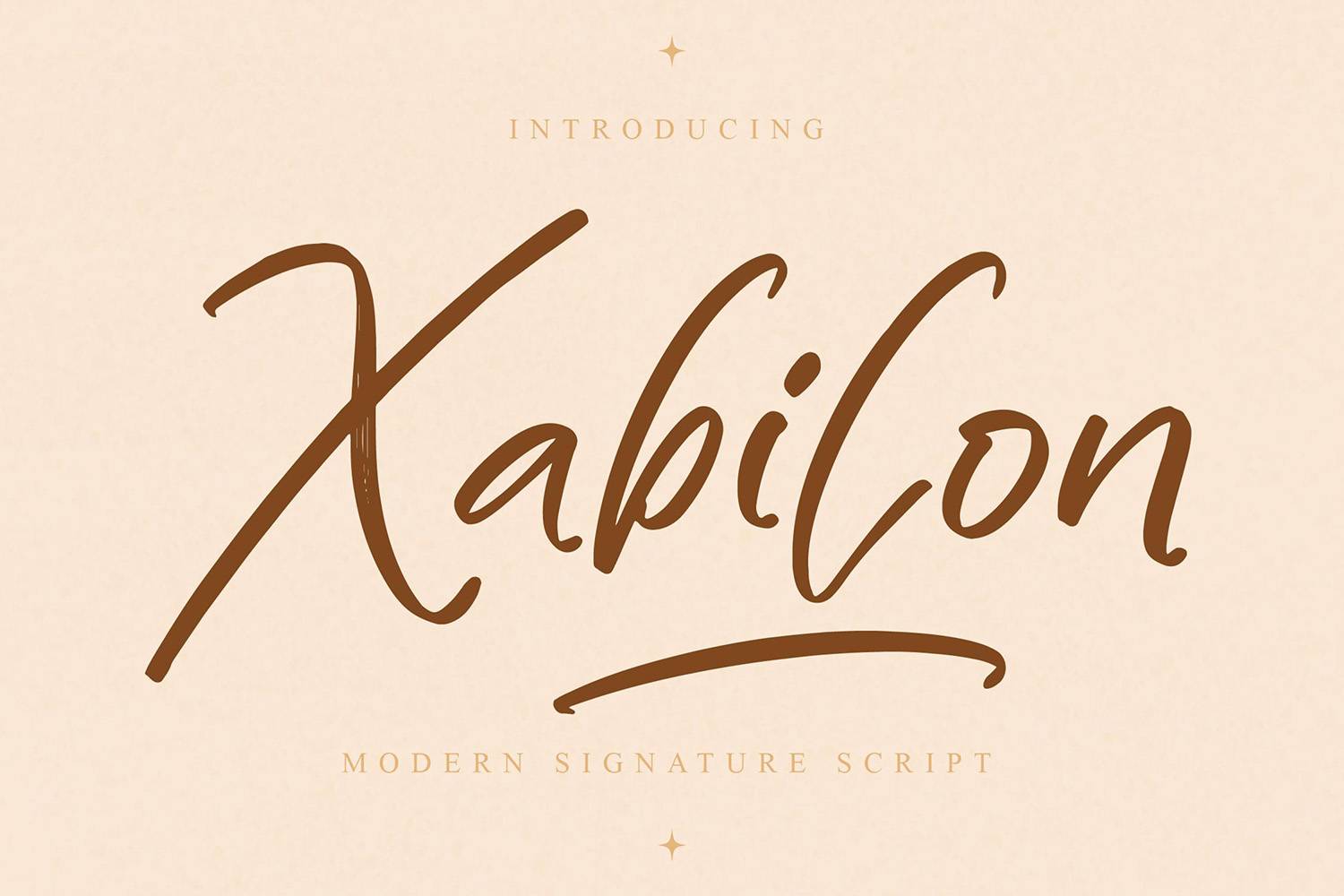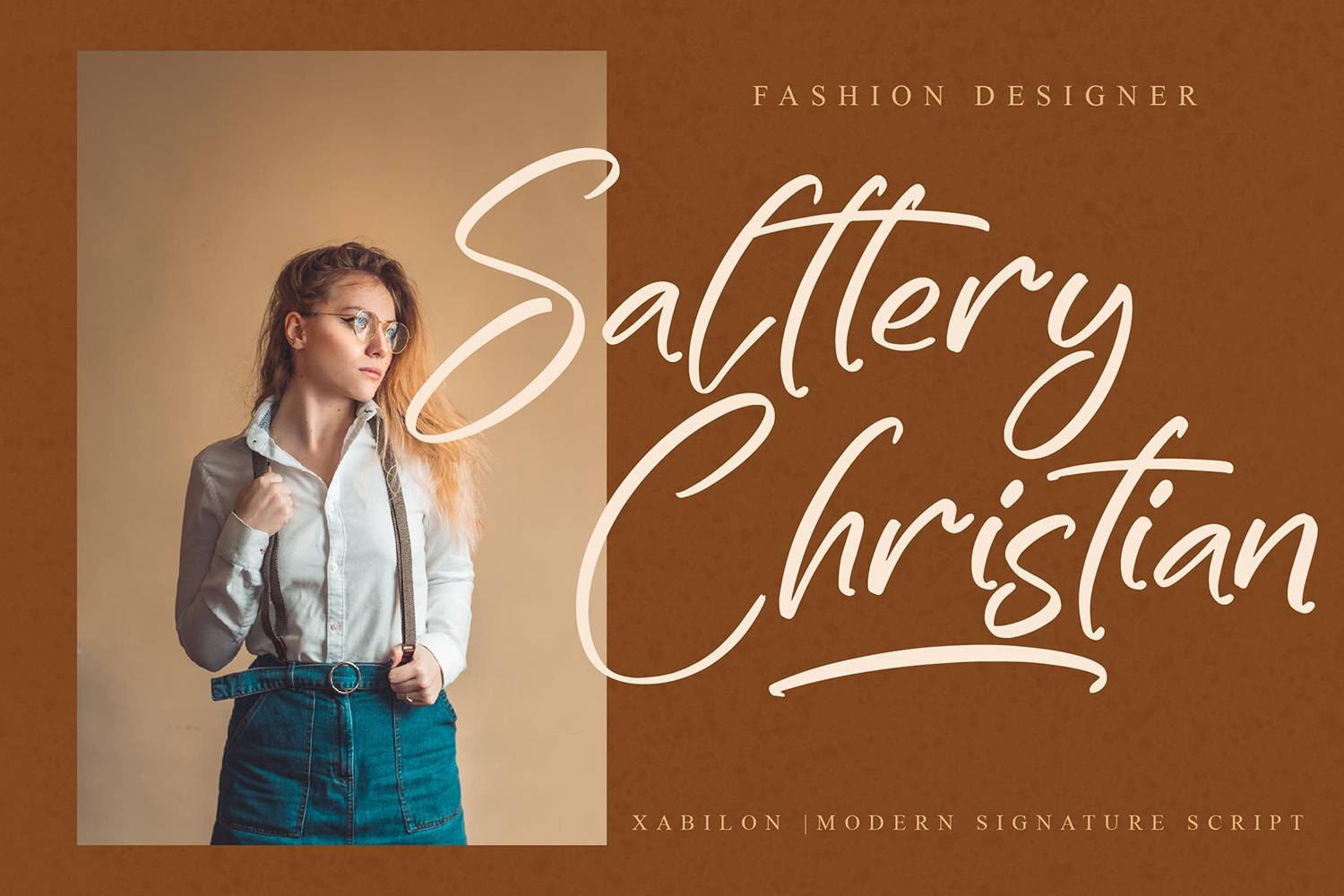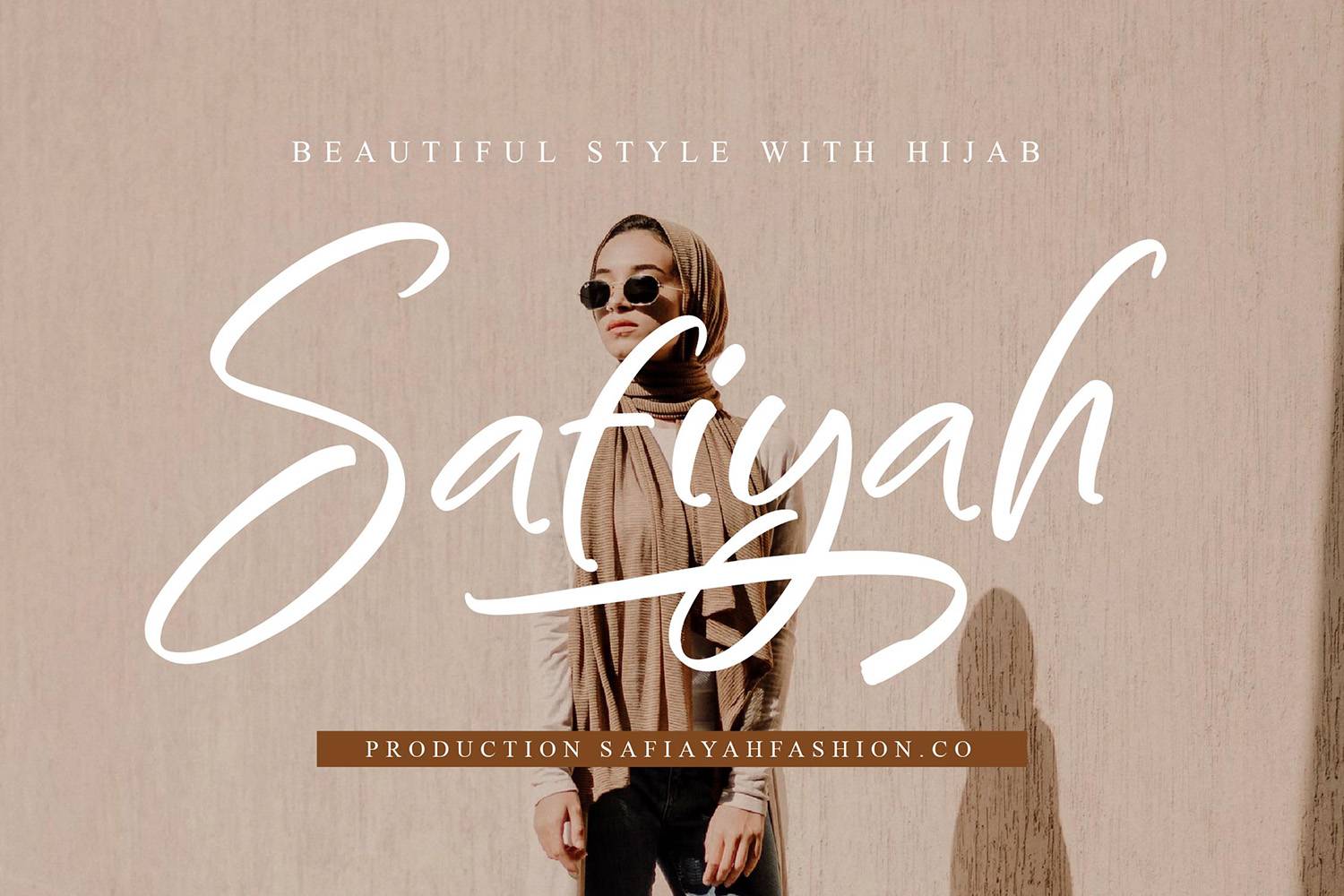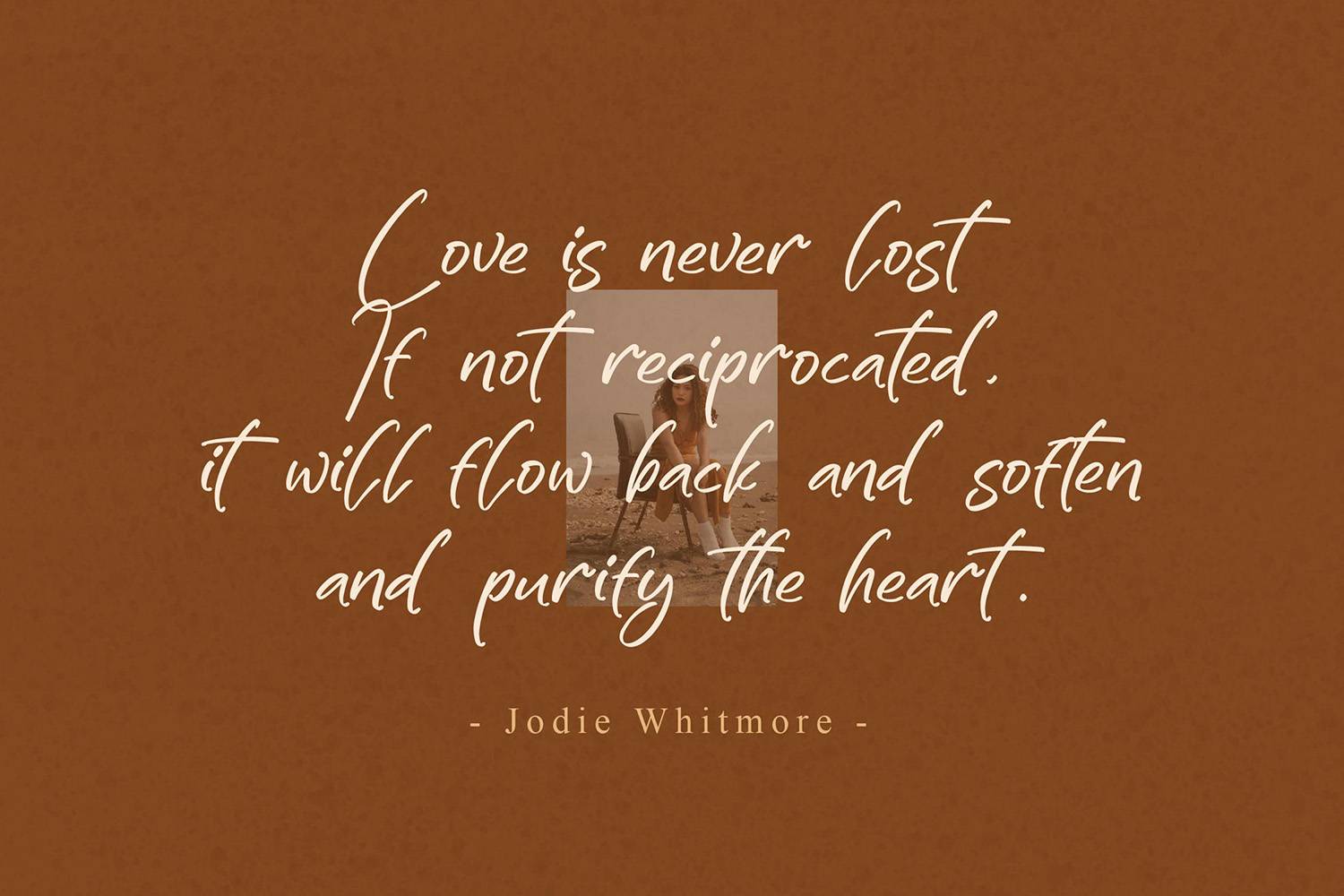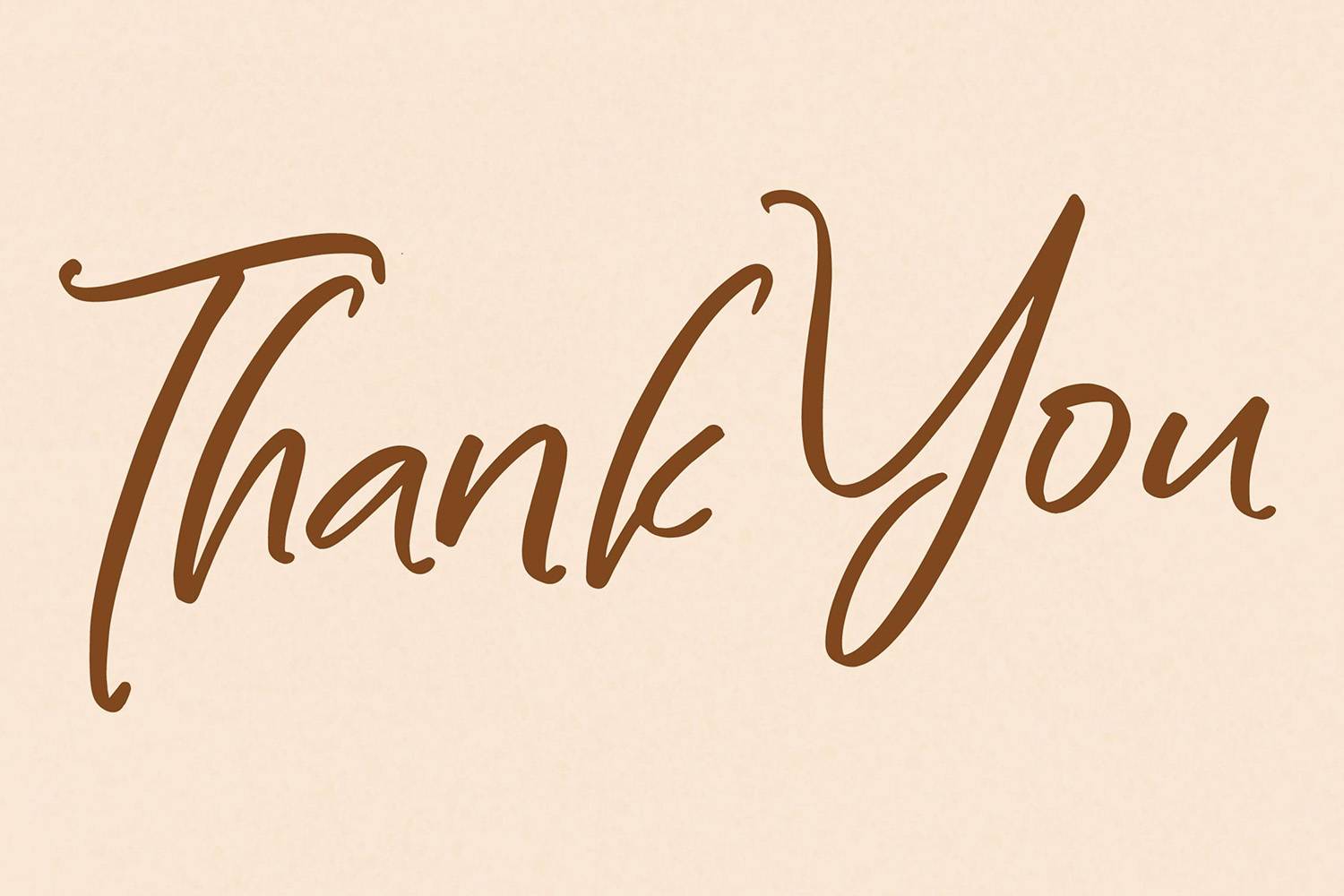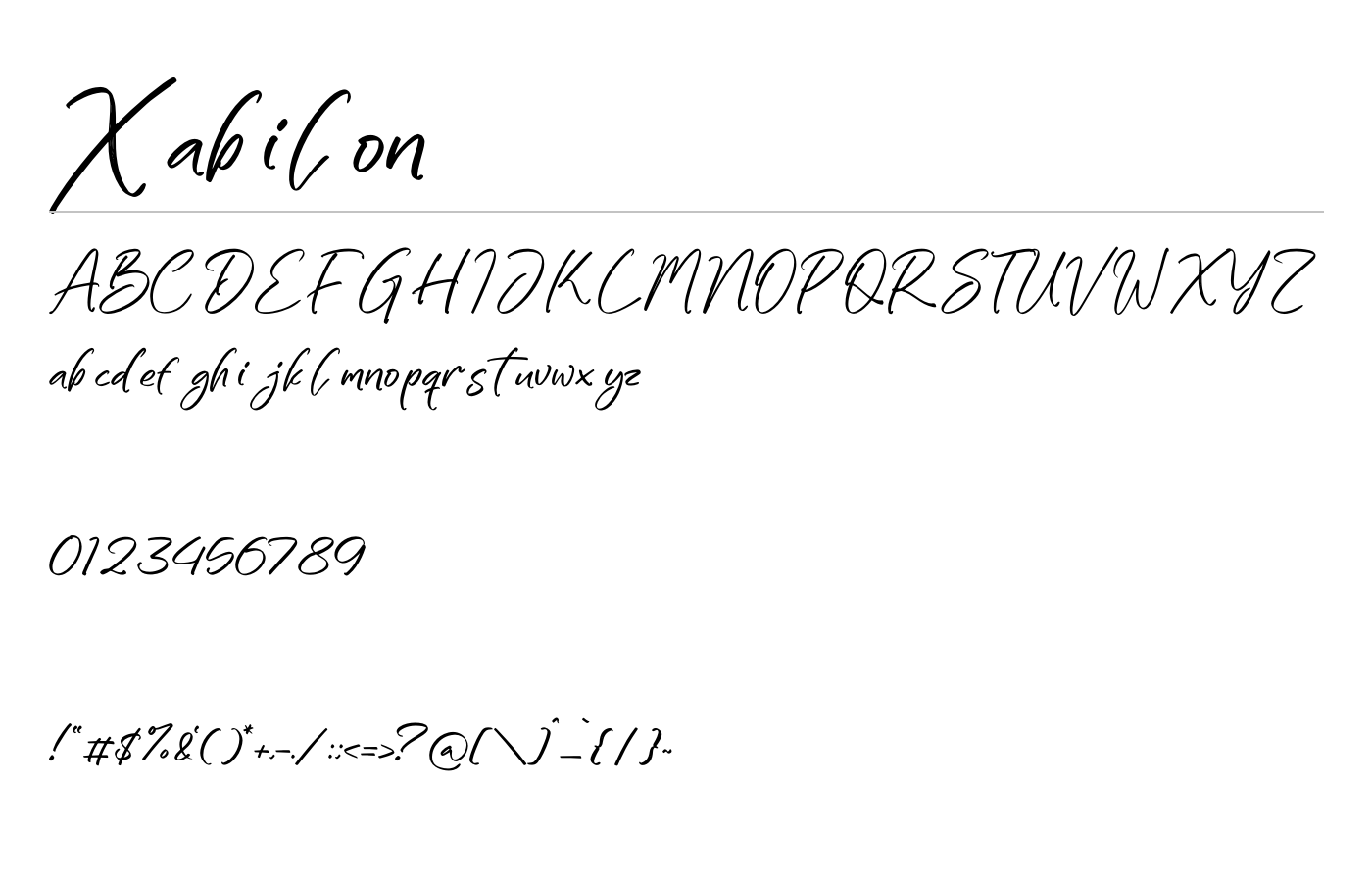
Xabilon is an elegant, flowing script font characterized by its slender, slightly irregular strokes that mimic natural handwriting. Its light weight and graceful, airy letterforms give it a personal and sophisticated feel, making it ideal for invitations, branding, and creative projects that want to convey a sense of refinement and individuality. This font works particularly well in settings where a stylish, handwritten touch is desired, adding a warm and artistic vibe.
Xabilon Font
About Xabilon Font